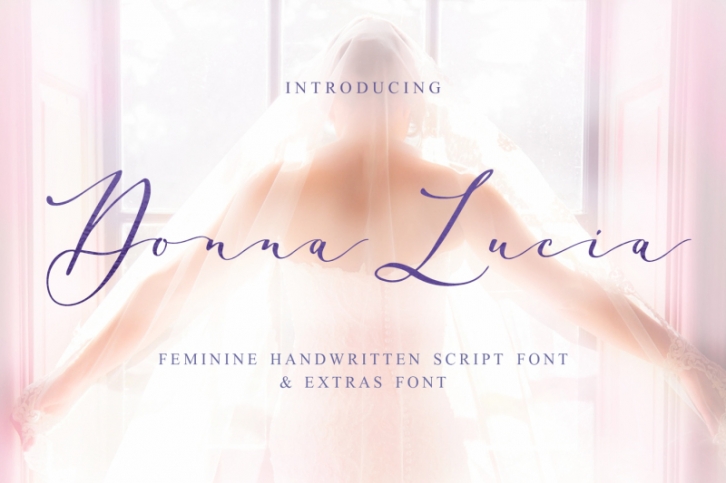
Donna Lucia font + Extras & Logo Download
Meet Donna Lucia an elegant, feminine and graceful calligraphic handwritten script font, plus a Symbols font with 52 lovely hand-drawn swashes and illustrations and BONUS! 3 pretty premade logos & 5 delicate watercolor splashes!
Donna Lucia script is perfect for branding, logos, wedding stationery, social media, packaging, and other projects that require an elegant touch.
Donna Lucia script contains a full set of uppercase letters and 3 full sets of lowercase letters, (standard, alternative, and initial form) and 27 ligatures - which can be used to create a handwritten calligraphy look.
Donna Lucia Symbols is a font with over 52 hand-drawn elements, illustrations, and swashes and can help to make your design more original. Combine and arrange swashes and illustrations to create your own designs and make borders, frames, dividers, logos and more (just use A-Z and a-z keys in the included Donna Lucia Symbols font). A different symbol is assigned to ever uppercase or lowercase standard character so you do not need graphics software just simply type the letter you need.